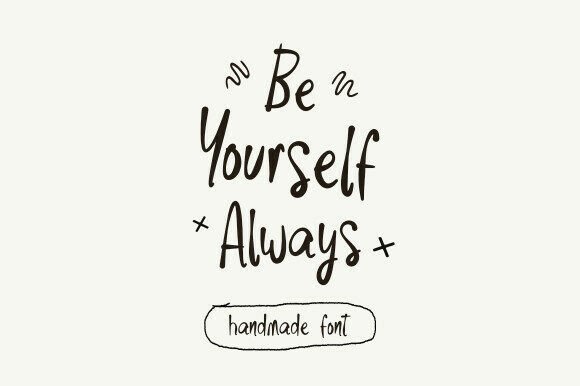
Embracing Authenticity, One Letter at a Time
You know that moment when you’re brainstorming ideas for a new project, and the perfect font suddenly pops into your mind? It’s like a spark of creativity that ignites a thousand possibilities. For me, that moment came when I stumbled upon the “Be Yourself Always Font”. Its unique, hand-drawn style is like a warm hug for your design.
This delightful font is more than just a typeface – it’s an invitation to celebrate individuality and warmth in your creative work. With its monoline, organic strokes and friendly rhythm, Be Yourself Always Font brings an authentic, heartfelt charm to every word. Whether you’re designing for a small business or simply adding a personal touch to your digital creations, this font is the perfect choice for anyone who values genuine, human connection.
Be Yourself Always Font Key Features
- Font Family: Be Yourself Always Font
- Unique Characteristics: Hand-drawn, cursive script with a modern twist, perfect for creative and personal projects
Be Yourself Always Font Review
I recently had the chance to work with the “Be Yourself Always Font” and I have to say, it’s a font that’s trying to do something unique. ✨ The font’s intention is to convey a sense of individuality and self-expression, which is something that’s definitely refreshing in the world of typography.
One of the things that works well with this font is its eclectic and playful feel. The font’s combination of rounded and angular shapes creates a sense of visual interest that’s perfect for headings and titles. The font also includes a range of swashes and ligatures that can add an extra touch of personality to your designs.
However, there are a few limitations to consider. ⚠️ The font can be a bit too busy for large blocks of text, and the irregular letterforms can make it difficult to read in certain situations. Additionally, the font’s unique style may not be suitable for all types of projects or brands.
Overall, I think the “Be Yourself Always Font” is a great choice for designers who are looking for something a little unconventional. While it may not be perfect for every project, it’s definitely a font that can add some personality and flair to your designs.
- ✨ Unique and playful feel
- Perfect for headings and titles
- Includes swashes and ligatures for added personality
- ⚠️ Can be too busy for large blocks of text
- ⚠️ Irregular letterforms can make it difficult to read in certain situations
- ⚠️ May not be suitable for all types of projects or brands